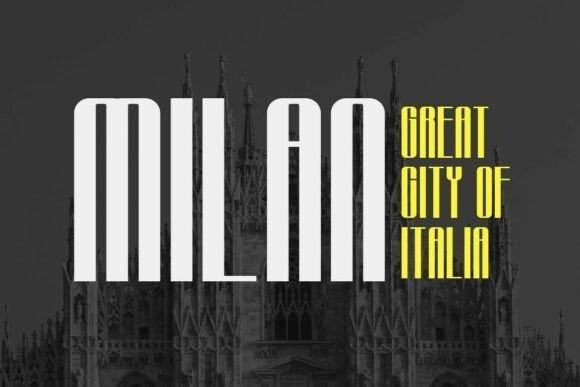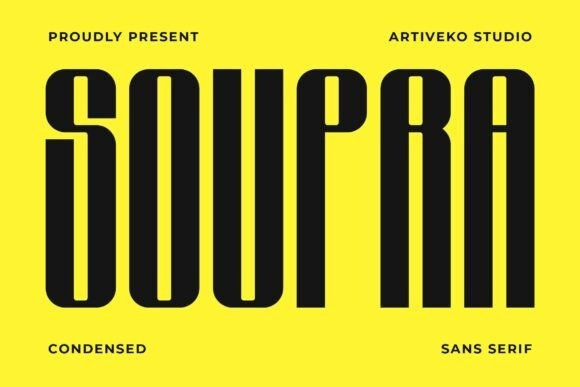
Soupra Font
Soupra Font is a bold and stylish sans serif font designed for creatives who seek originality and sophistication. With its clean lines, unique curves, and balanced proportions, Soupra combines functionality with artistic flair, making it ideal for branding, editorial layouts, posters, packaging, and digital graphics.